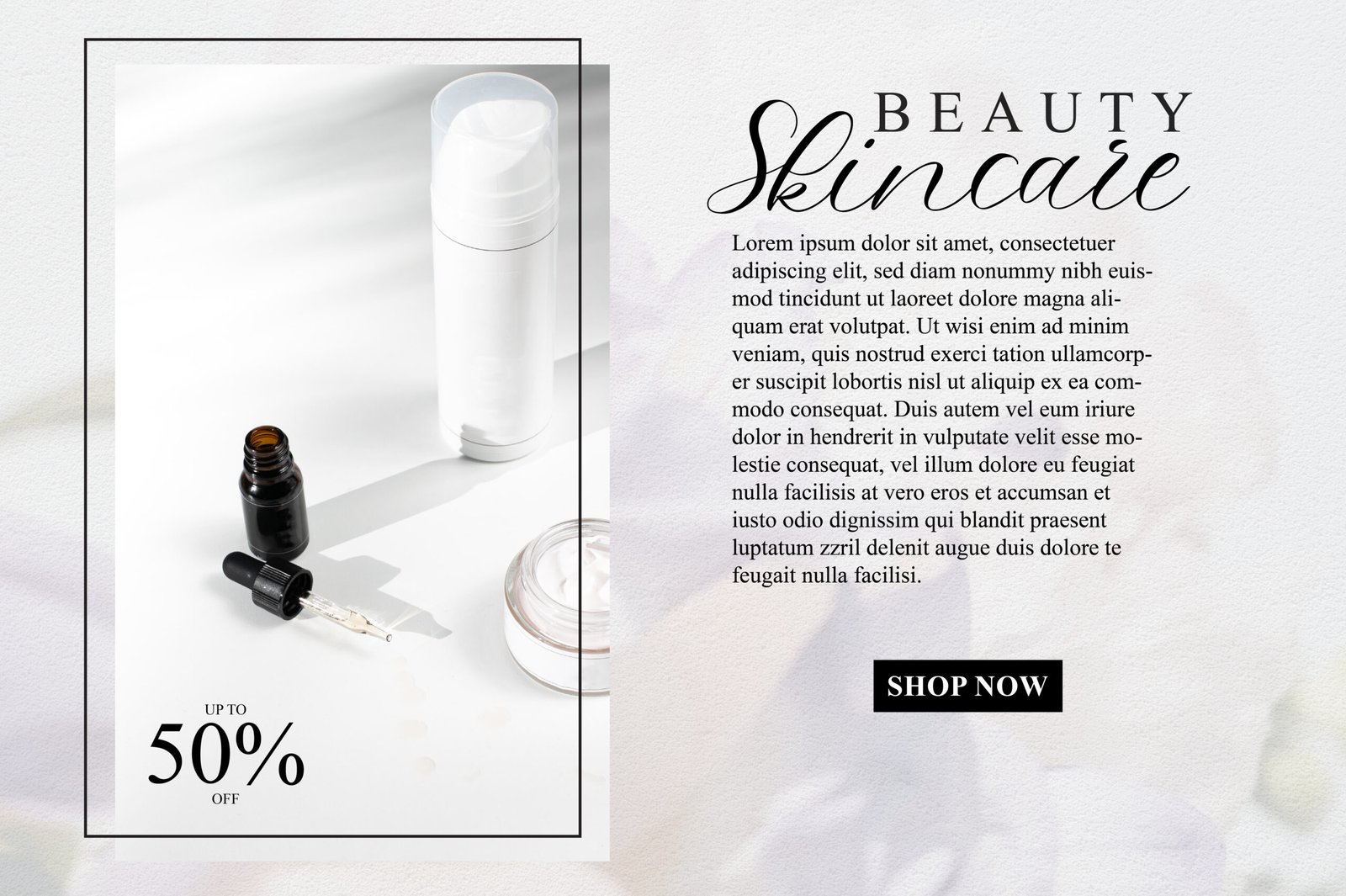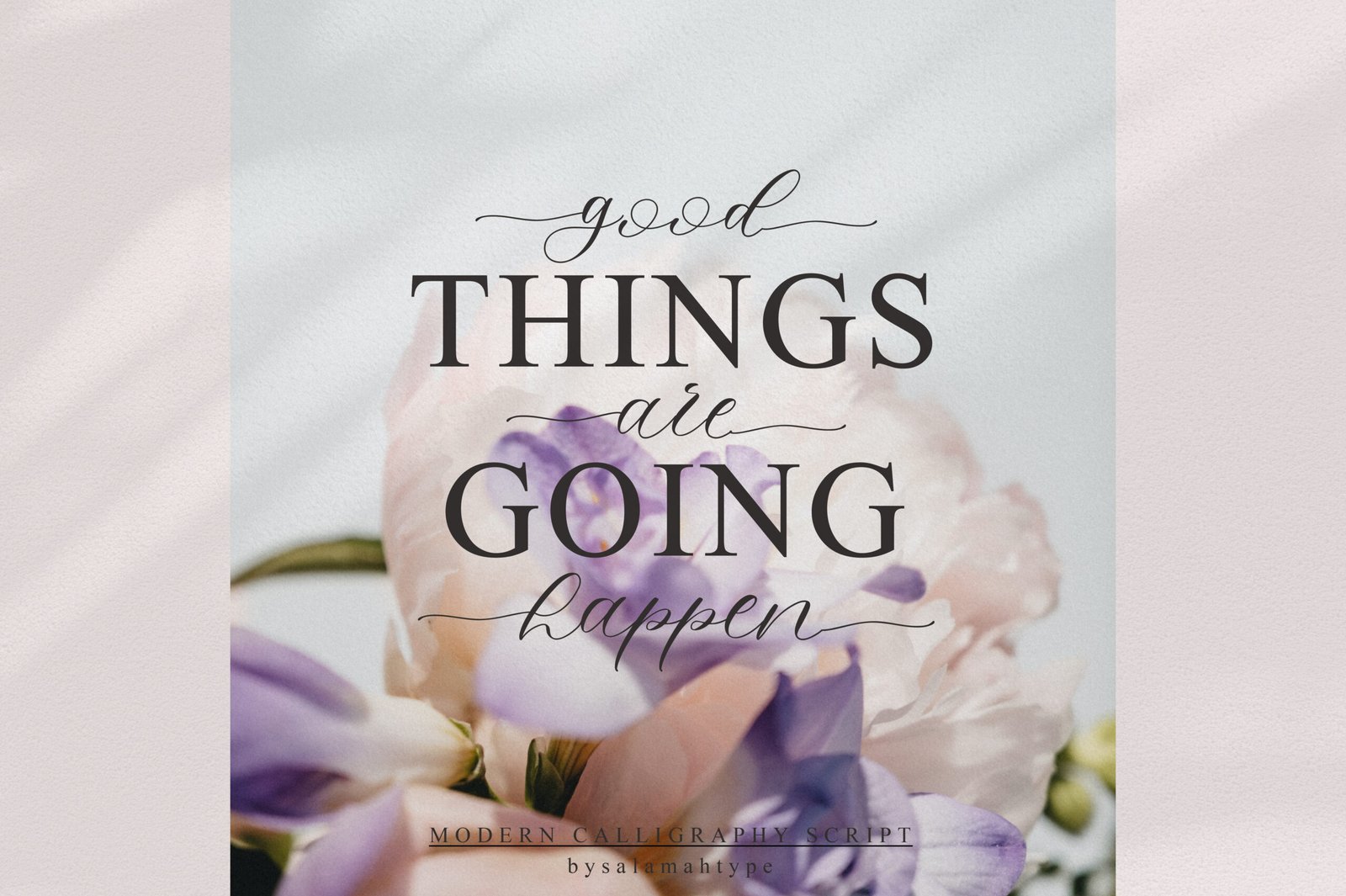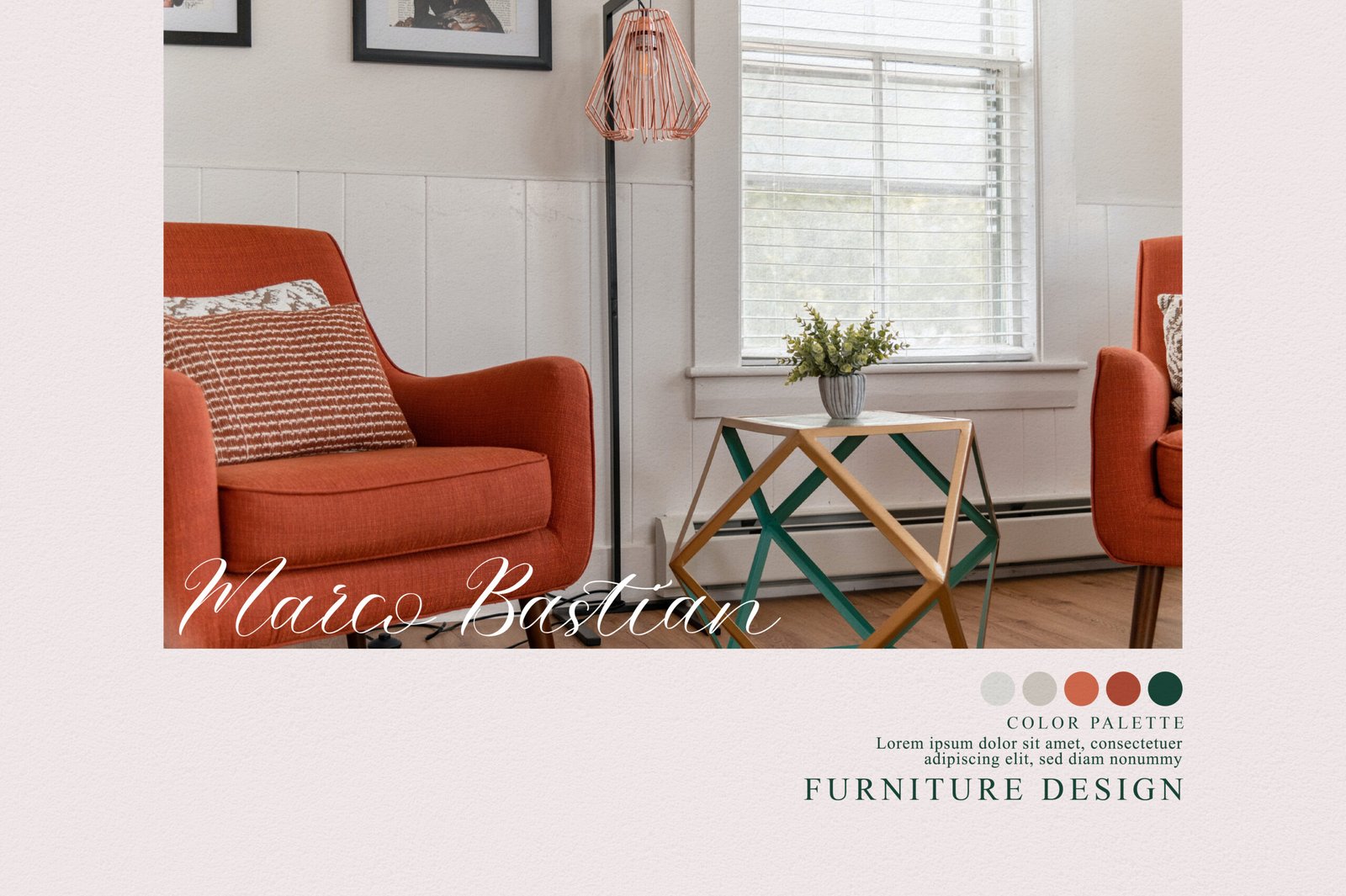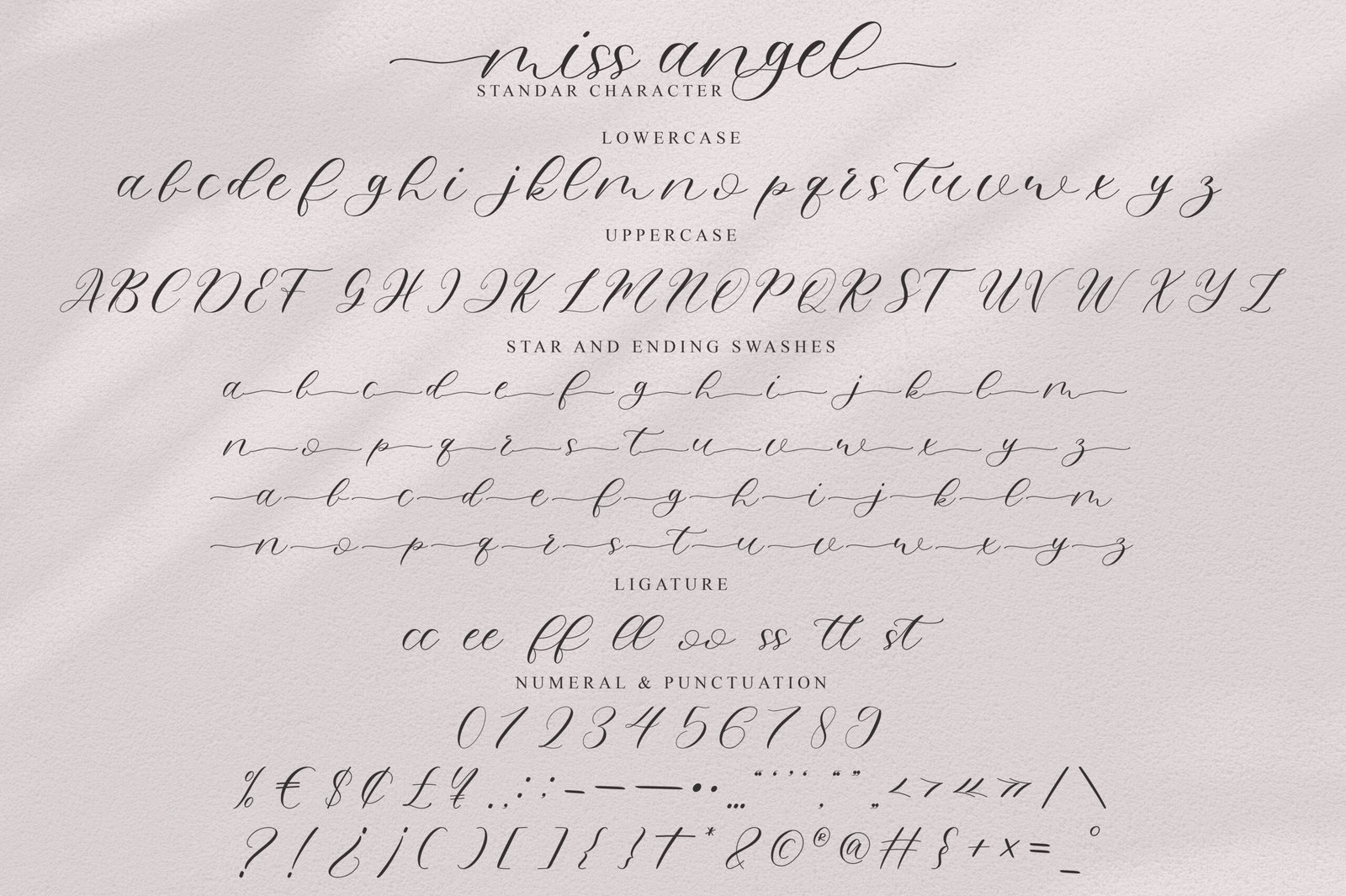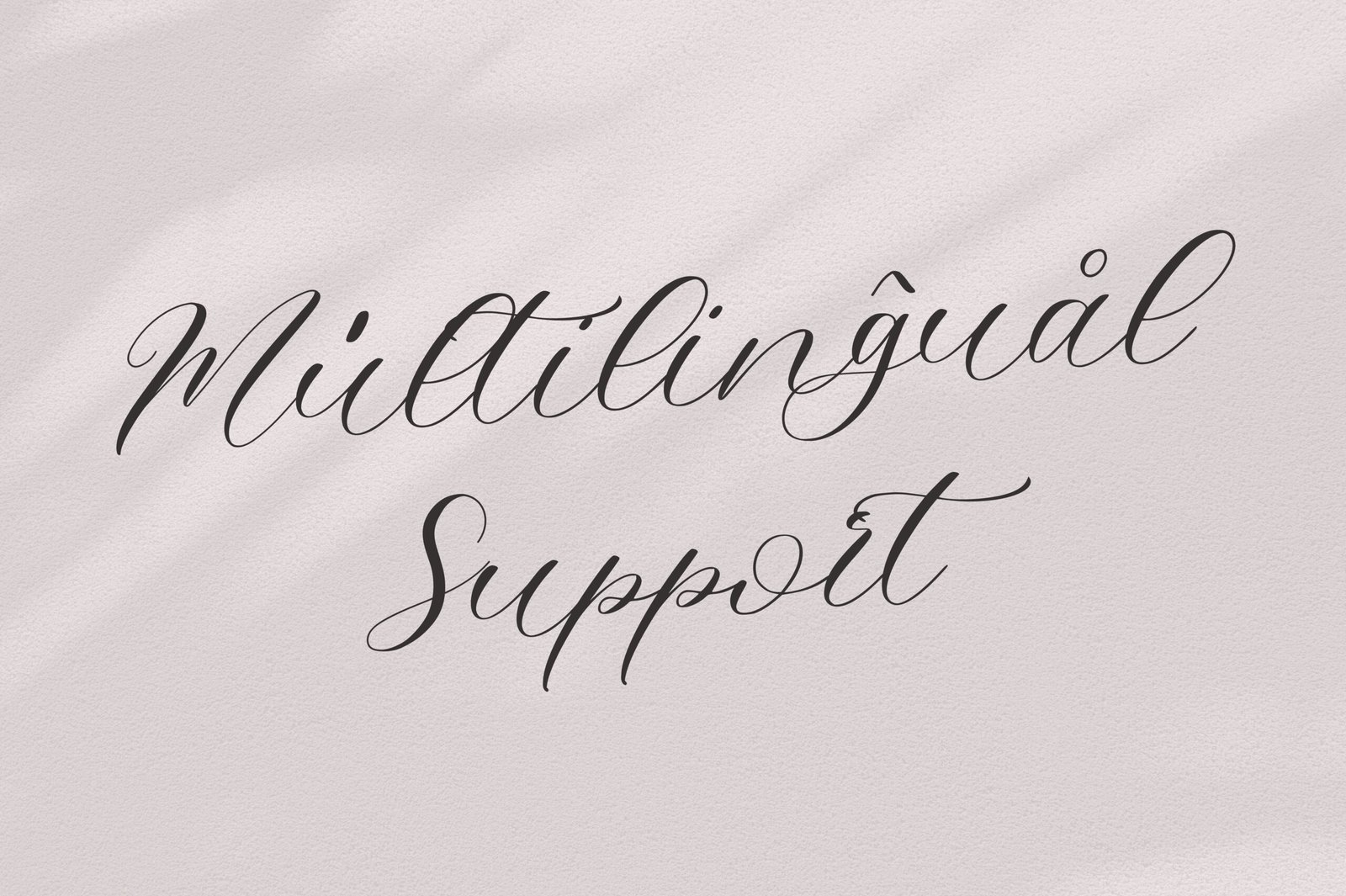
Miss Angel
Miss angel is a modern and elegant calligraphy/script font. This font is perfect for branding projects, logos, wedding designs, product packaging, product designs, labels, invitations, social media posts, ads, merchandise, and more!
Features :
• Uppercase & Lowercase
• Numbers and Punctuation
• MULTILINGUAL
• Ligature and Alternate
Miss Angel Script Font